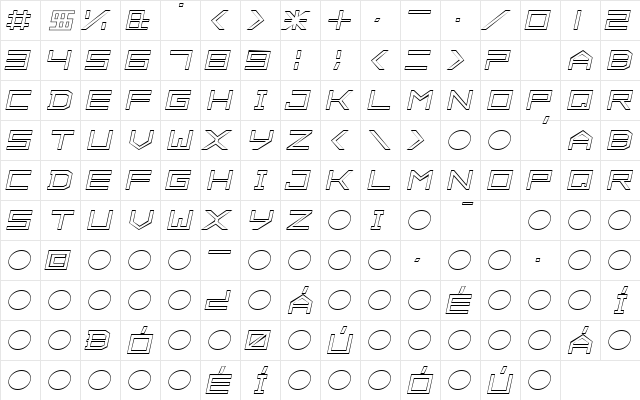
ALPHA OUTLINE Italic
Design Context for ALPHA Typeface
ALPHA is built around its visual character rather than neutral utility — its distinctive forms are designed to make an impression at display sizes. The slanted form adds forward momentum and visual energy.
Font Pairing: Pair with a clean neutral sans-serif for body copy to let ALPHA's character lead without overwhelming the composition.
Pro Tip: Treat ALPHA as the centrepiece of your typographic hierarchy. One strong heading set in a decorative face can carry an entire layout.